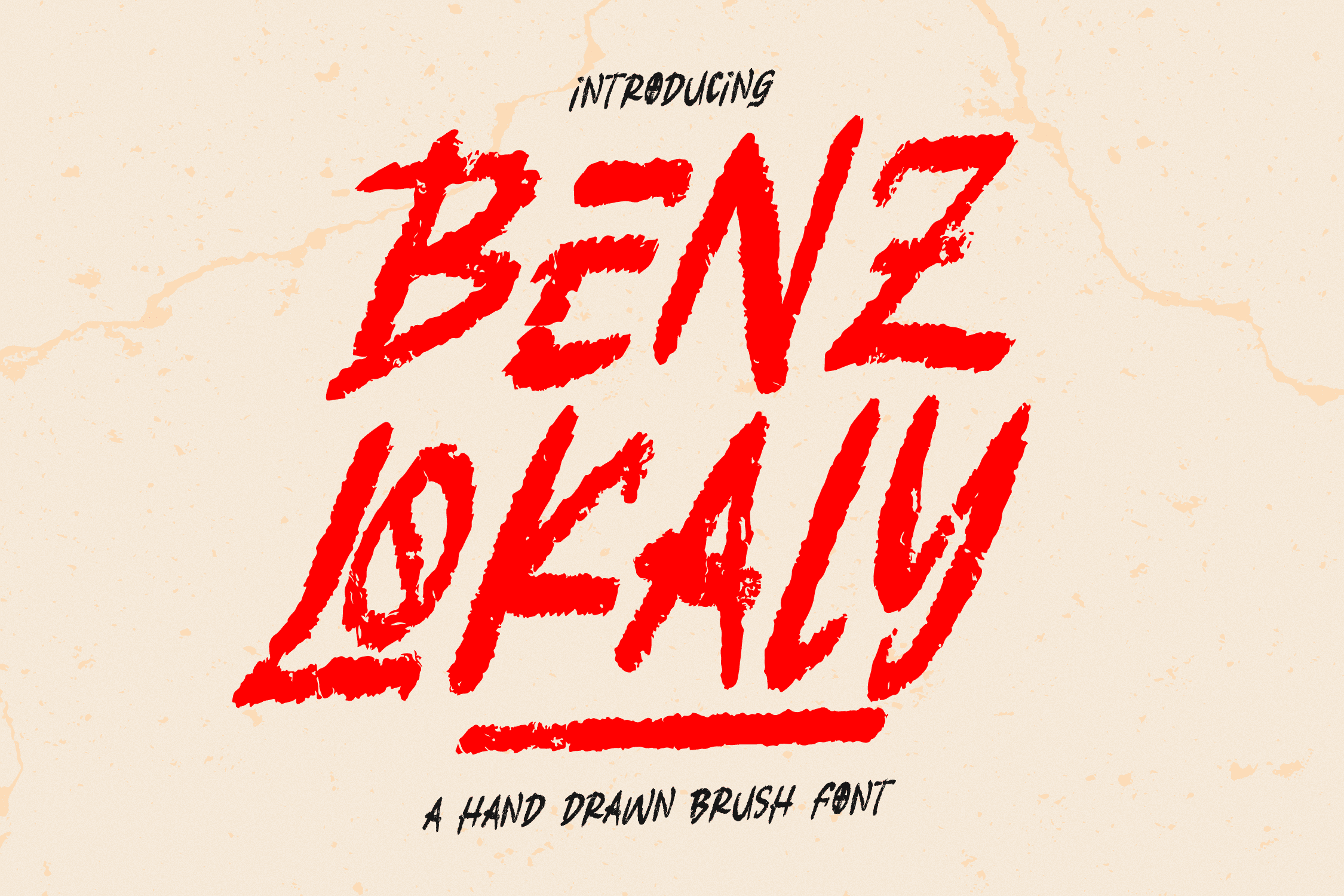
๐ Check out Benz Lokaly Font now! Explore this ๐ script fonts and claim your ๐ free download here. Let's start crafting together! ๐ Benz Lokaly is a hand-drawn brush font with a natural, flowing style. It features bold, curvy letters that look li...